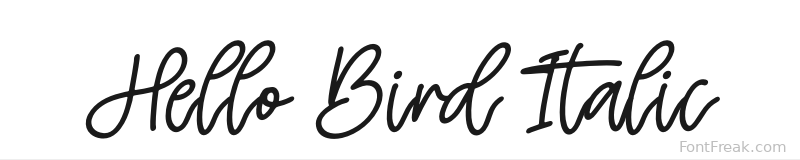
Hello Bird Italic
About Hello Bird Italic
Hello Bird Italic, created by Perspectype Studio in 2021, is a captivating handwritten font that effortlessly combines elegance with a playful charm. This font is characterized by its fluid, cursive strokes that dance across the page, creating a sense of movement and spontaneity. The stroke weight is predominantly medium, providing a balanced contrast that enhances readability while maintaining a stylish appearance. The spacing between the letters is thoughtfully designed, allowing for a seamless flow that adds to its overall aesthetic without sacrificing clarity.
This versatile font is ideal for a variety of creative applications. It shines in wedding invitations, where its romantic flair can set the tone for special occasions. Additionally, Hello Bird Italic works beautifully on restaurant menus, adding a touch of sophistication that appeals to diners. Its unique style makes it perfect for branding materials, such as logos and product packaging, where capturing attention is crucial. Content creators will also find this font suitable for social media graphics, giving their posts an inviting and personalized feel.
What truly sets Hello Bird Italic apart is its ability to convey warmth and personality. Its playful yet refined nature invites viewers in, making it a delightful choice for anyone looking to infuse their work with charm. For those interested in enhancing their design repertoire, the Hello Bird Italic font free download is an opportunity not to be missed.